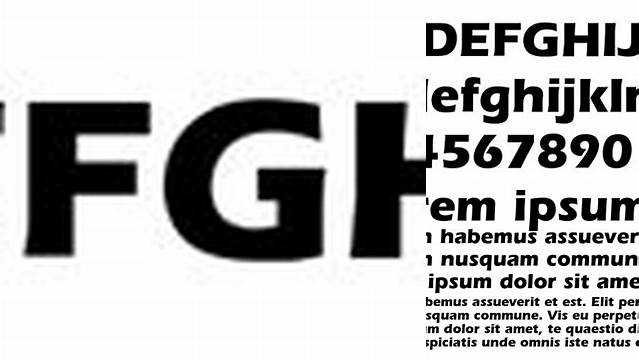
Are you on the hunt for a powerful and versatile font that can elevate your design projects? Look no further than free font ITC Eras Std Bold! This iconic typeface has been a favorite among designers for decades, and for good reason. In this comprehensive guide, we'll dive deep into the world of ITC Eras Std Bold, exploring its history, characteristics, usage, and how you can get your hands on it. Get ready to unleash your creativity with this exceptional font!
Understanding the Allure of ITC Eras Std Bold
Free Font ITC Eras Std Bold is more than just a typeface; it's a statement. Its clean lines, bold presence, and timeless appeal make it a go-to choice for a wide range of design applications. This font family, created by Albert Boton in 1985, is known for its geometric sans-serif design. The boldness of this particular style makes it ideal for headlines, titles, and any text that needs to grab attention. Its readability is another key feature, ensuring that your message is delivered clearly and effectively, even at larger sizes. ITC Eras Std Bold possesses a certain elegance that is both modern and classic. It strikes a perfect balance between simplicity and impact, making it highly versatile. Its adaptability allows it to be used in various contexts, from corporate branding to creative design projects. Understanding its nuances is critical to harnessing its full potential. This section breaks down the key components that make ITC Eras Std Bold so sought after in the design community. It's a font that adds sophistication and clarity to any project, which is why it has stood the test of time and continues to be a favorite choice for designers worldwide. You'll quickly understand why designers often select free font ITC Eras Std Bold. This font is a powerhouse, offering both aesthetic appeal and practical functionality. Its use can significantly enhance the visual communication of a project.
Exploring the Design Philosophy Behind ITC Eras Std Bold
Digging into the design philosophy behind free font ITC Eras Std Bold unveils its core strengths. The design is rooted in a geometric sans-serif style, with a focus on clean lines and a balanced structure. This design choice makes the font extremely legible, which is a crucial aspect for both print and digital media. Its deliberate simplicity allows it to blend seamlessly into various design environments without clashing with other elements. The geometric shapes and the uniform stroke weights contribute to its modern and approachable aesthetic. The careful consideration of the letterforms, spacing, and overall layout emphasizes readability. Every curve, angle, and space is meticulously designed to ensure clarity. Moreover, the bold weight adds a strong visual presence. It demands attention and creates an immediate impact, making it ideal for headlines and titles. The intentional design elements make ITC Eras Std Bold adaptable across different mediums. Whether it's a website, a print ad, or a book cover, the font retains its appeal. The design philosophy encourages a versatile and reliable font. By understanding these underlying design principles, you can fully harness the capabilities of free font ITC Eras Std Bold. It’s a design decision that demonstrates thoughtfulness and professionalism, offering both aesthetic appeal and functional advantages. The design philosophy highlights the versatility and enduring appeal of this font.
ITC Eras Std Bold vs. Other Font Choices: What Sets It Apart
When considering fonts for a design project, the choice often comes down to what sets them apart. For free font ITC Eras Std Bold, this comes down to several key factors. Unlike some other sans-serif fonts, ITC Eras Std Bold balances simplicity with a strong visual impact. This balance makes it perfect for a variety of uses. Its geometric design, though simple, offers clarity and readability, even at larger sizes. This is essential for headlines. Comparing it to fonts like Helvetica or Arial, ITC Eras Std Bold has a distinct character. It possesses a subtle elegance, which makes it stand out. Its boldness adds an undeniable presence, which other fonts may lack. The versatility of ITC Eras Std Bold is also a major differentiator. It works well in various design contexts. Furthermore, the font's history and recognition contribute to its appeal. ITC Eras Std Bold is a respected and recognized font. Its use adds a level of professionalism and credibility to your project. The subtle differences in its letterforms, like the rounded 'a' and 'g', give it a unique identity. These details ensure it stands out. It provides a perfect balance between visual appeal and practical functionality. When weighing the options, consider the aesthetic and functional needs. Free font ITC Eras Std Bold is a strong choice, and the best way to stand out.